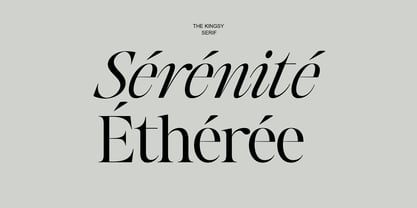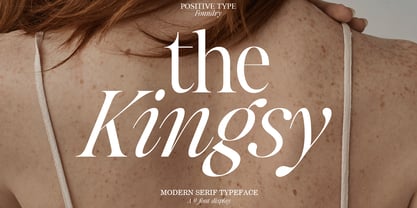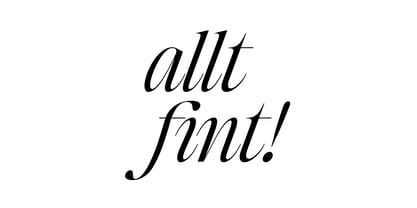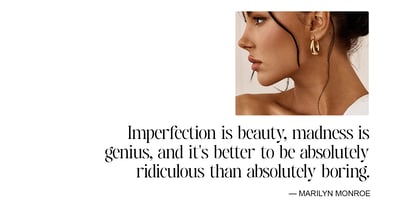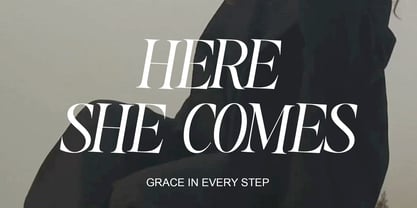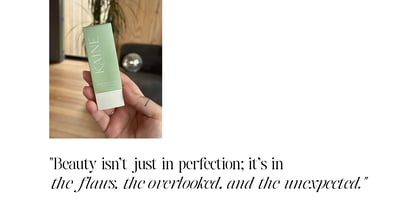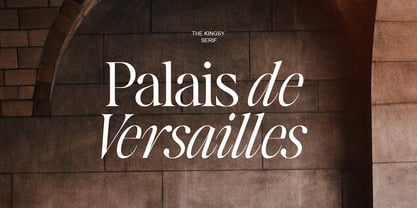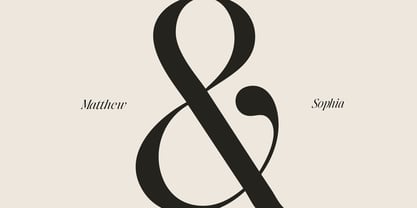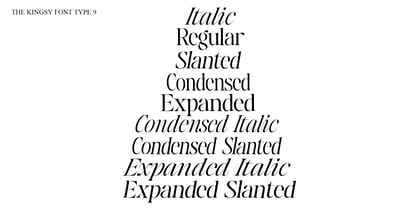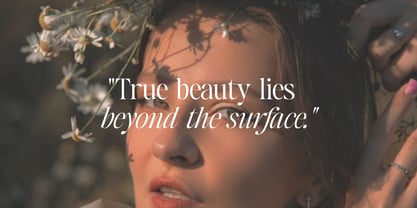
The Kingsy
by Positive Type
The The Kingsy Font Family was designed by Nur Hayati and published by Positive Type. The Kingsy contains 9 styles and family package options.
The Kingsy, a sophisticated serif typeface designed to embellish your projects with classic elegance and modern versatility. The Kingsy comes in nine styles: Regular, Italic, Condensed, Condensed Italic, Expanded, Expanded Italic, Slanted, Condensed Slanted, Expanded Slanted,
Perfect for branding, logos, editorial designs, and invitations, The Kingsy offers clean lines and a timeless aesthetic.
OpenType Features: Kerning, Ligatures, Style Sets
Character Sets: Uppercase, numbers, punctuation, ligatures, multilingual support
Designers: Nur Hayati
Publisher: Positive Type
Foundry: Positive Type
Design Owner: Positive Type